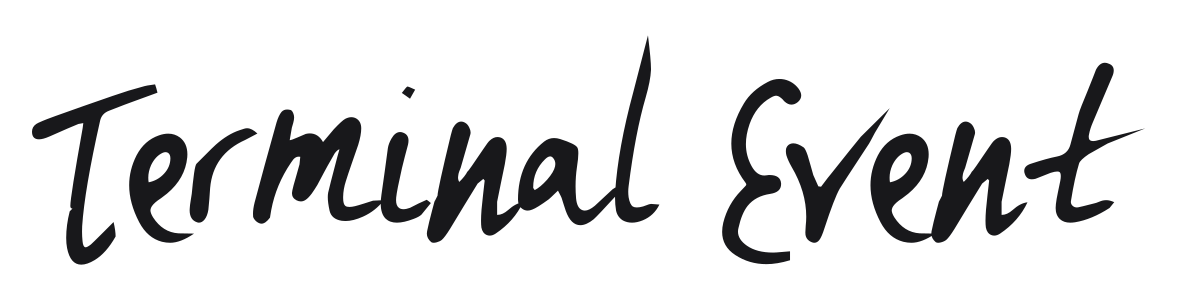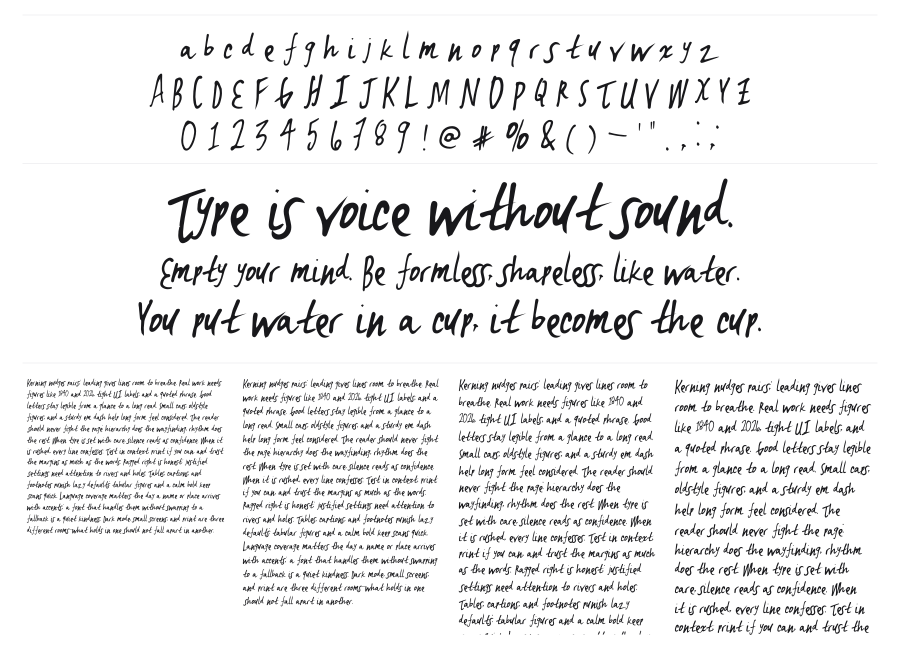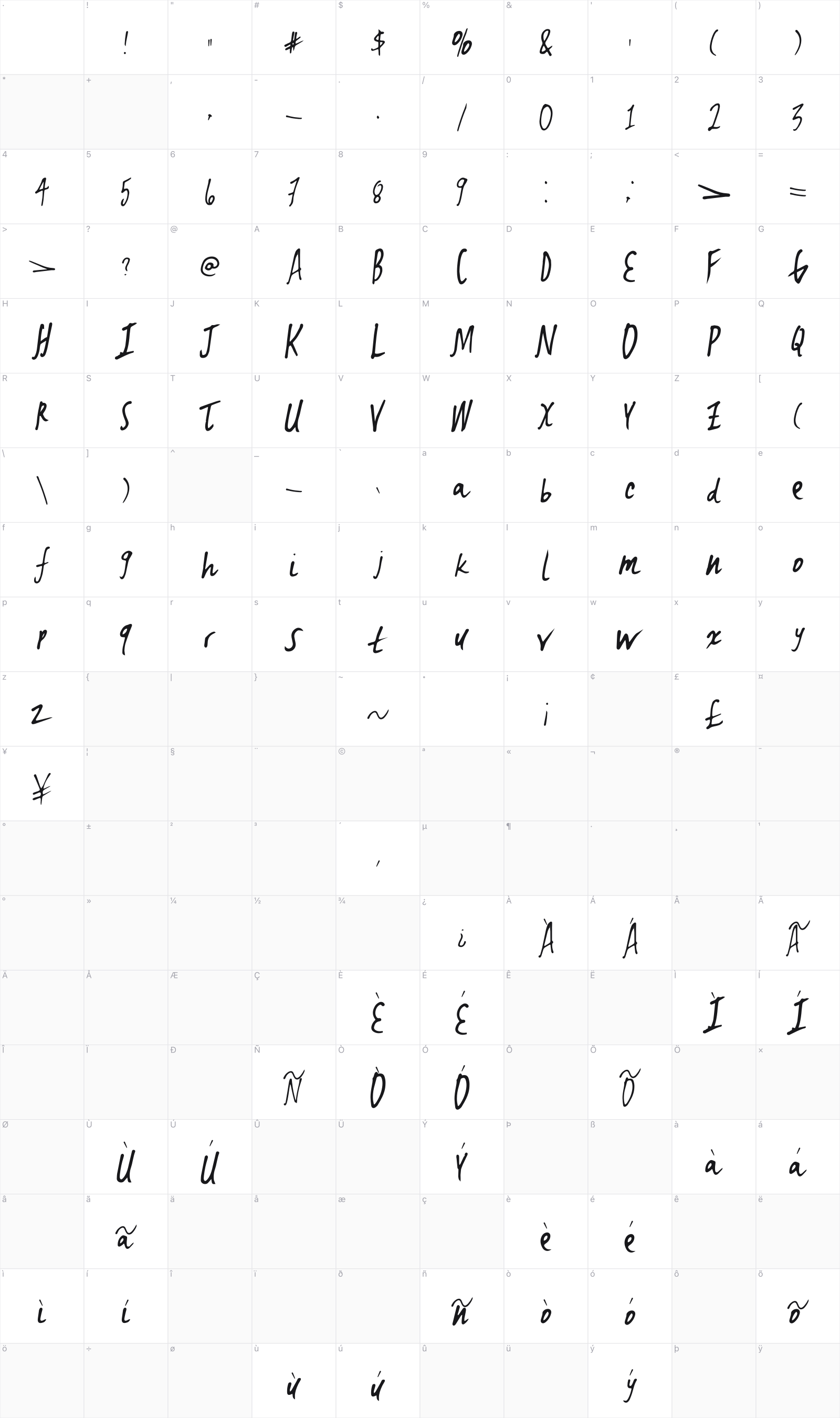
Terminal Event
Terminal Event is a raw, gestural brush script with a fast, freehand energy. The heavy strokes and irregular connections read like someone dashed it out in one fluid motion, giving it an authentic, unpolished character. It works well at large sizes for posters, logos, and any branding that needs handmade personality.